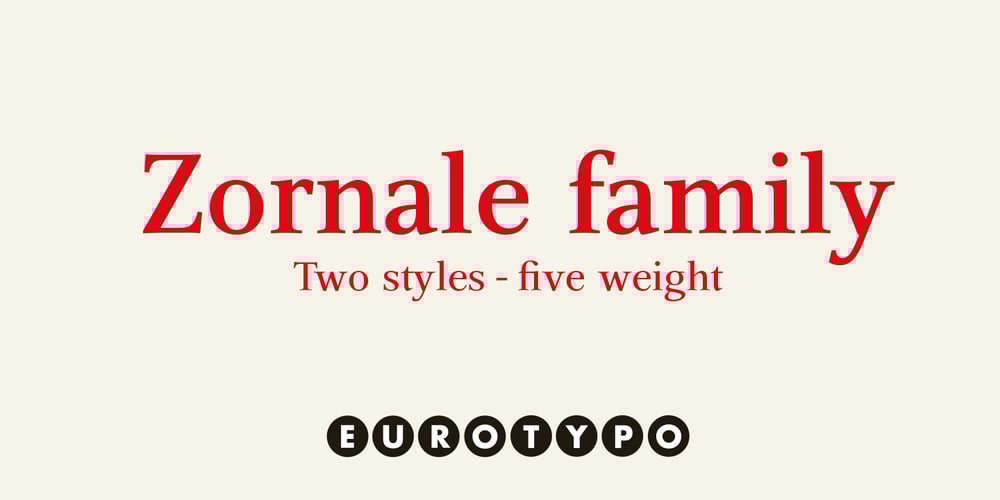
Zornale Font Family was designed by Olcar Alcaide and published by Eurotypo. Zornale contains 7 styles and family package options. The “Zornale”, is an original manuscript that contains a large amount of data, providing a daily record of the books acquired by the Venetian bookseller Francesco de Madiis, between 1481 and 1488.Zornale is a family of text fonts in five weights that can be combined with the variant Caption with short ascenders and descendants.The family is completed with true italics in two weights (light italics and italics) specially designed for use in reading texts.These fonts have been designed with precise kerning and full OpenType features: Small caps, old-style numbers, Swashes, stylistic and contextual alternates, ligatures and case-sensitive forms. Each font contains 549 glyphs for complete control and enhance typographic refinement.